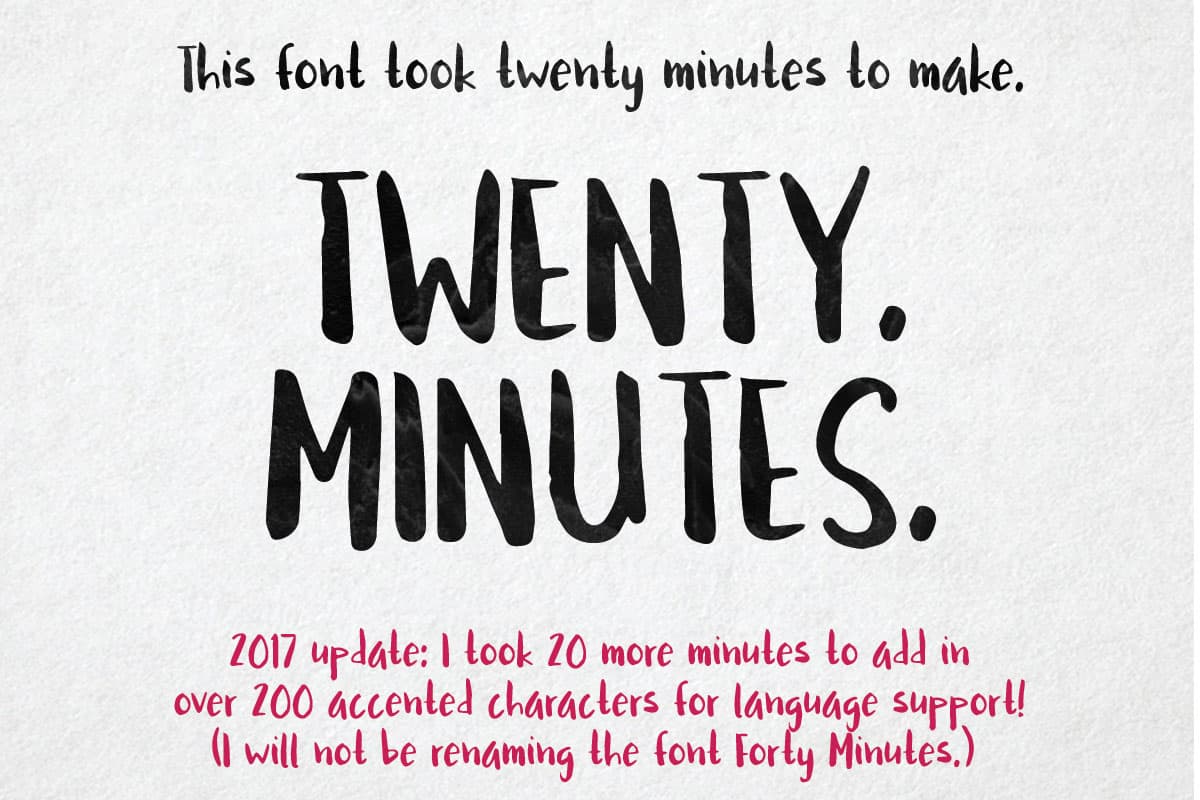
Twenty Minutes
So there’s a new font-making product out there: Fontself Maker. It’s a plugin for Illustrator that allows you to drag an entire alphabet straight into the interface and export an OTF font.
Fontself Maker doesn’t have kerning or some other features (yet), so I still threw this into Type 3.2 for a little refinement, adding in the most basic kerning pairs.
STILL! From drawing the letters (Pentel pocket brush pen on cardstock) to saving the gently kerned OTF, this took around 20 minutes or so. This will be a great timesaver for all future fonts — importing SVGs or tracing JPGs into a font creation program is a time-consuming part of the process.
This is a very limited font — you can see above all of the characters I drew to put in.  (The period, comma, and quotation marks all did multiple-duty to create things like the colon and semicolon too.) But if you have a use for it, please feel free to grab it and use it!
UPDATE: I had a request to add in a few specific accented characters, so I went ahead and added in over 200 of them. And I also saved it out to TTF format, in addition to the original OTF format. It’s still fast work — I took maybe another 20 minutes to do this fresh stuff. (Don’t worry, I won’t be renaming this font Forty Minutes.)